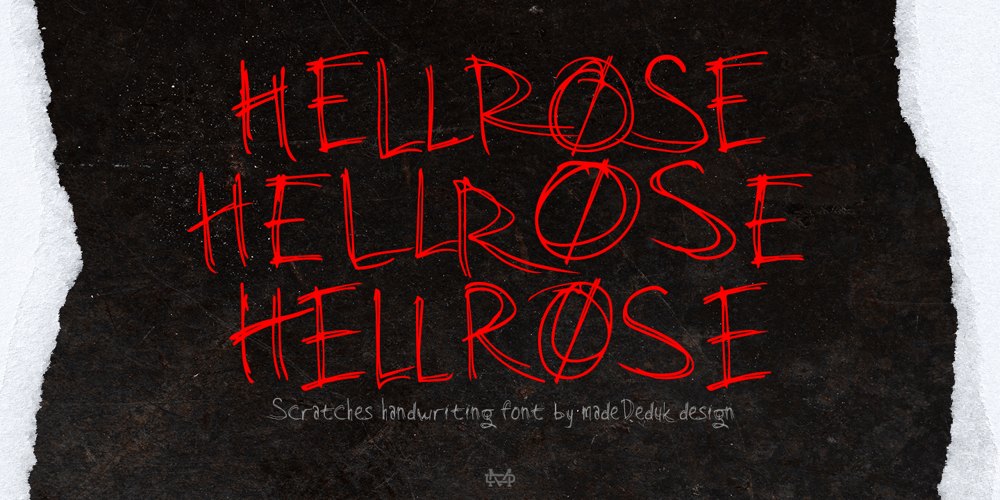
Hellrose Font Family was designed by madededuk and published by madeDeduk. Hellrose contains 3 styles and family package options. Hellrose is a scratches hand drawn font contains 50+ ligatures with three alternative. Hellrose is great for branding, posters, logos, invitation, writing and headings.Feature Uppercase & Lowercase Number & Symbol International Glyphs Multilingual support Ligature Thanks so much for checking out my shop and feel free to drop us a message any time and follow my shop for upcoming updates.Hope you enjoy it.